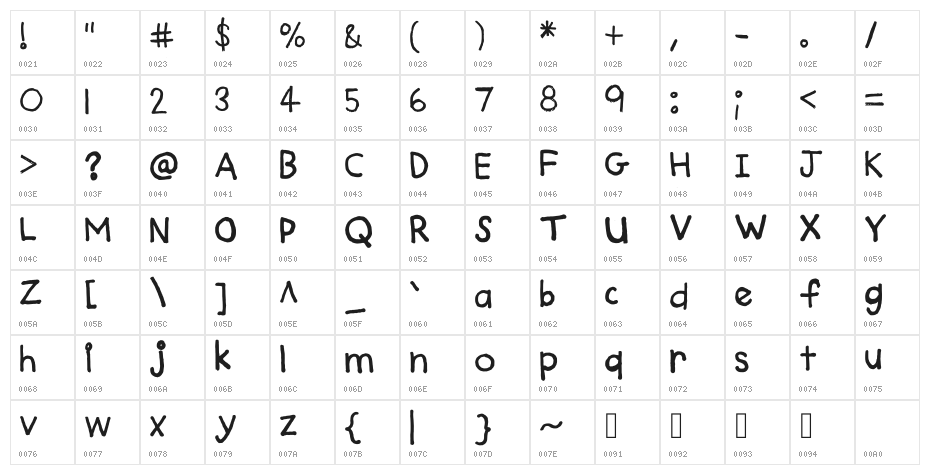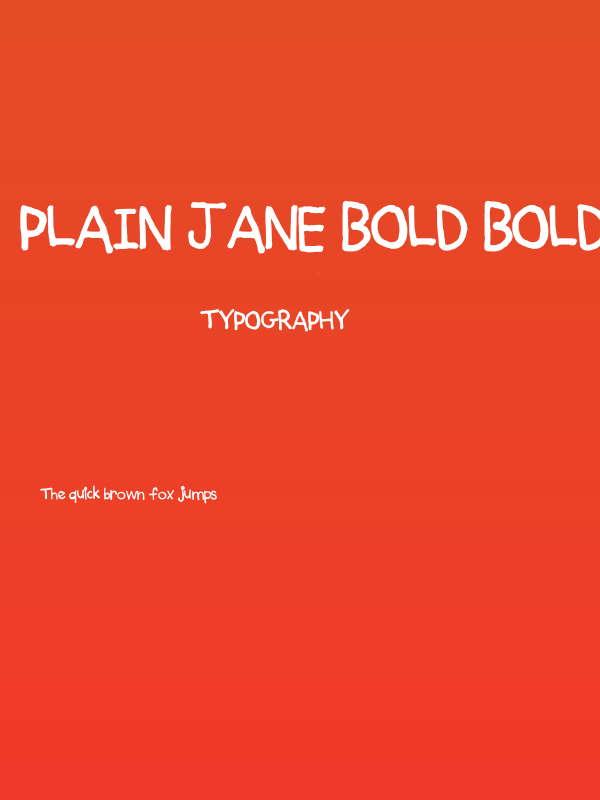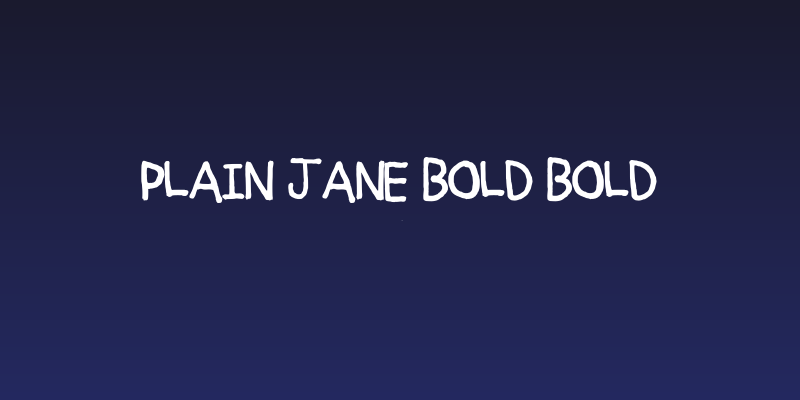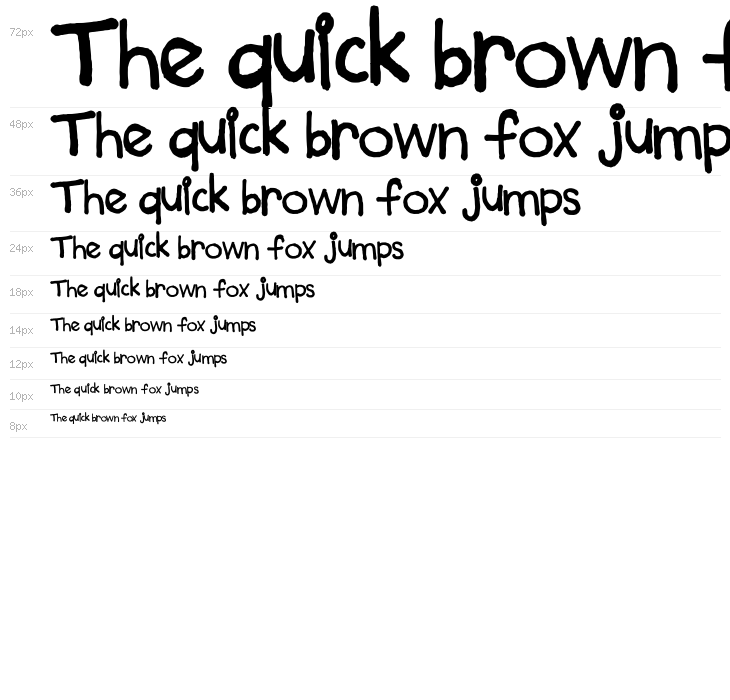
Plain Jane Bold Bold Font
Plain Jane Bold Bold Description
This font features a playful and informal style with a hand-drawn appearance. The characters are bold and slightly irregular, giving a casual and approachable feel. The uppercase and lowercase letters maintain a consistent thickness, contributing to a cohesive look. The numbers and special characters follow the same style, ensuring uniformity across all glyphs. Its organic and whimsical nature makes it suitable for projects that require a personal touch. The strokes are rounded and smooth, enhancing its friendly and inviting aesthetic.
| Use Case | Headlines, Logos, Informal text |
| Proposed Projects | Ideal for children's books, casual invitations, greeting cards, and playful branding. |